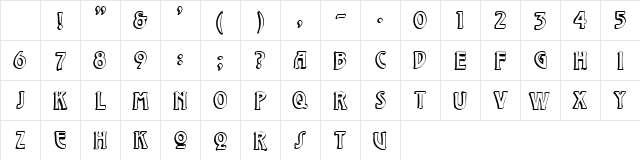
Kornelia Normal Free Font
Kornelia Normal
Design Context for Kornelia
Kornelia is a composed and adaptable typeface that performs quietly and consistently across a wide range of design contexts.